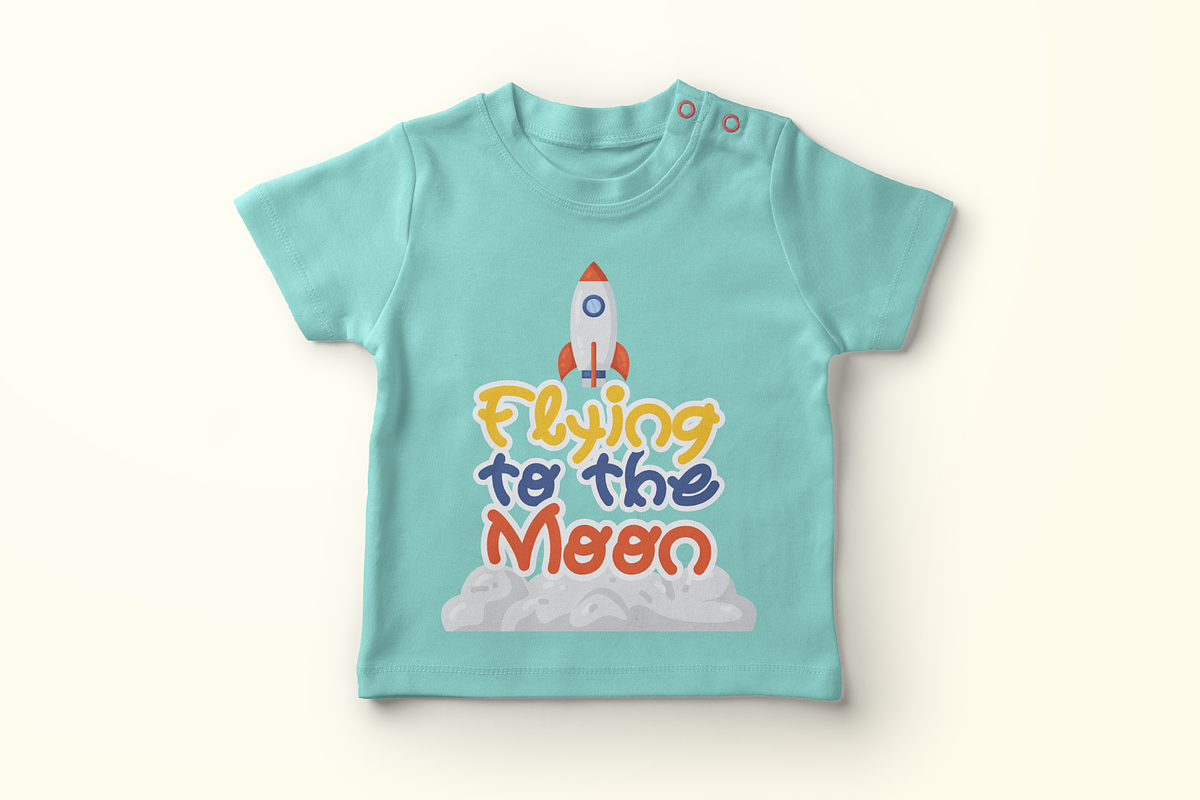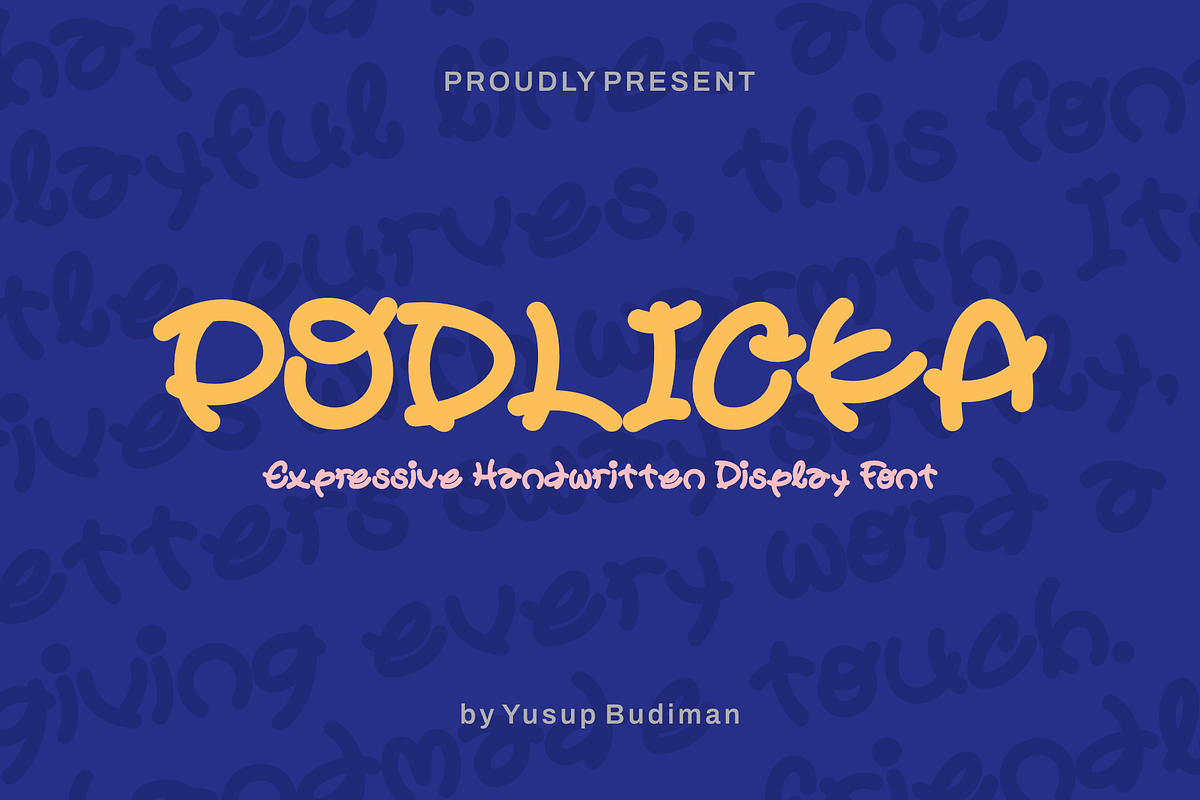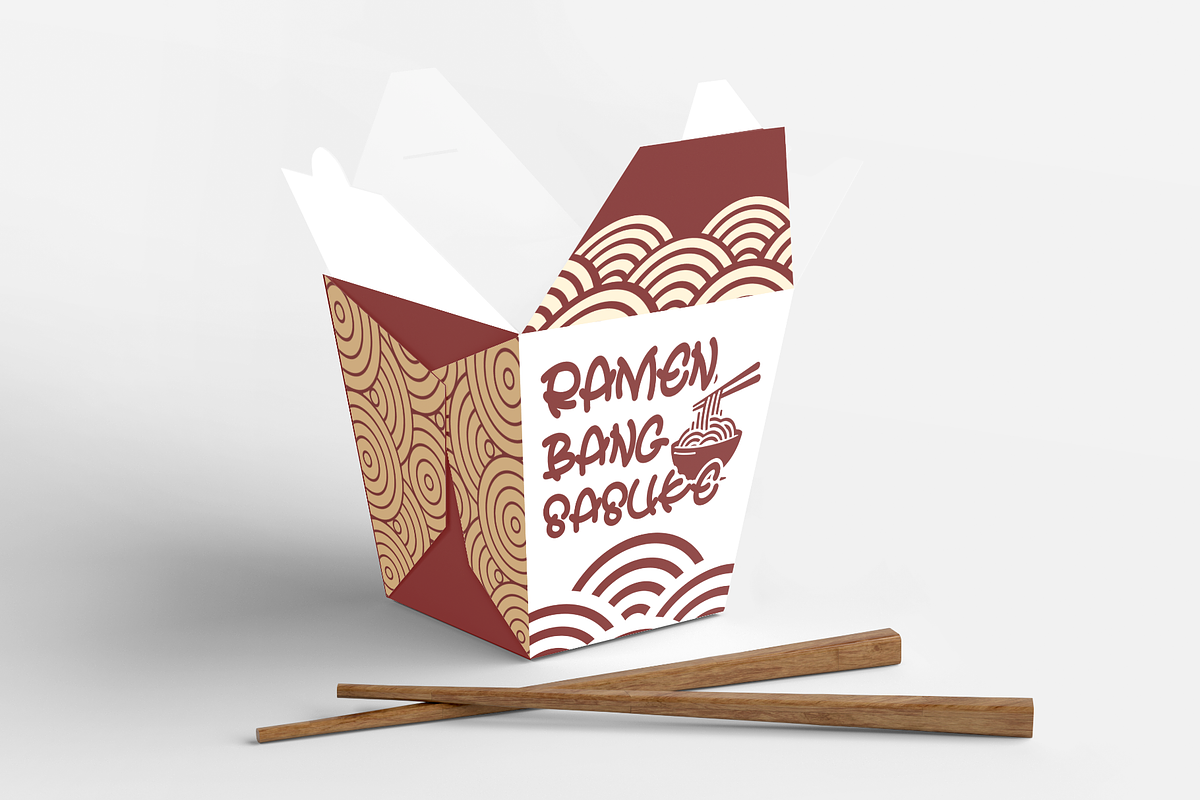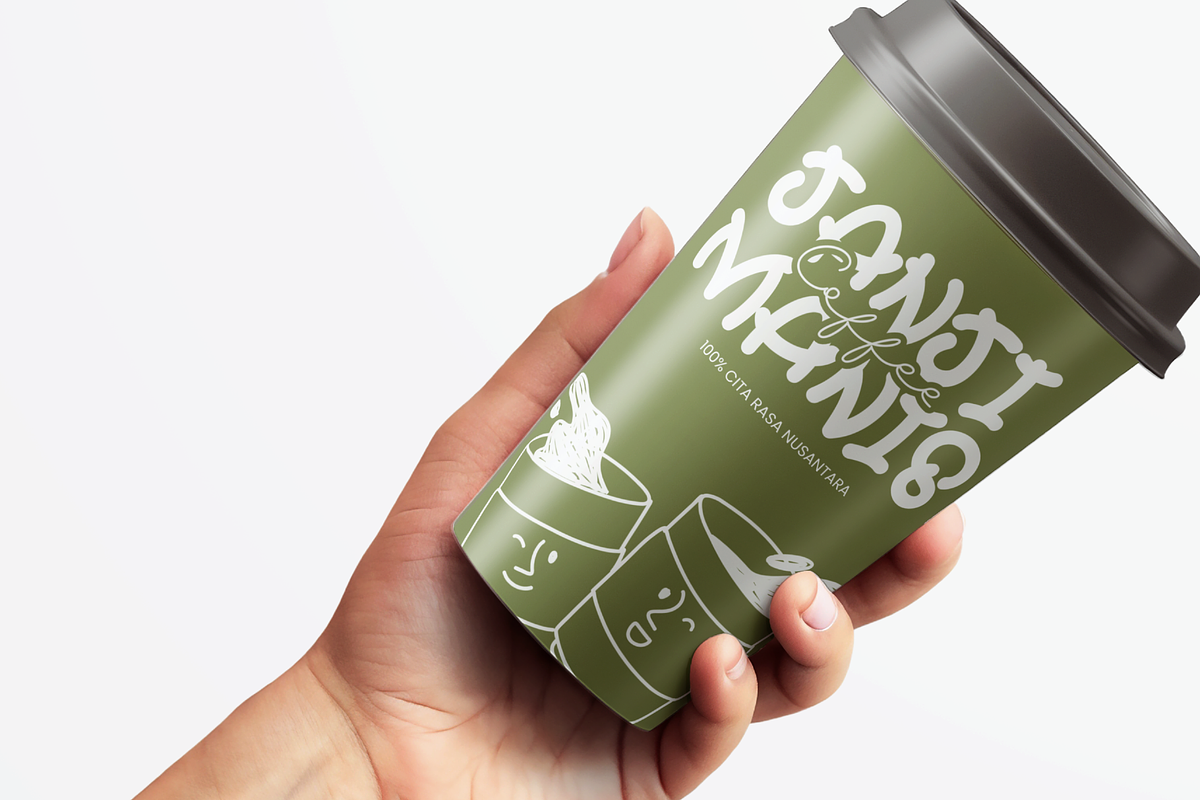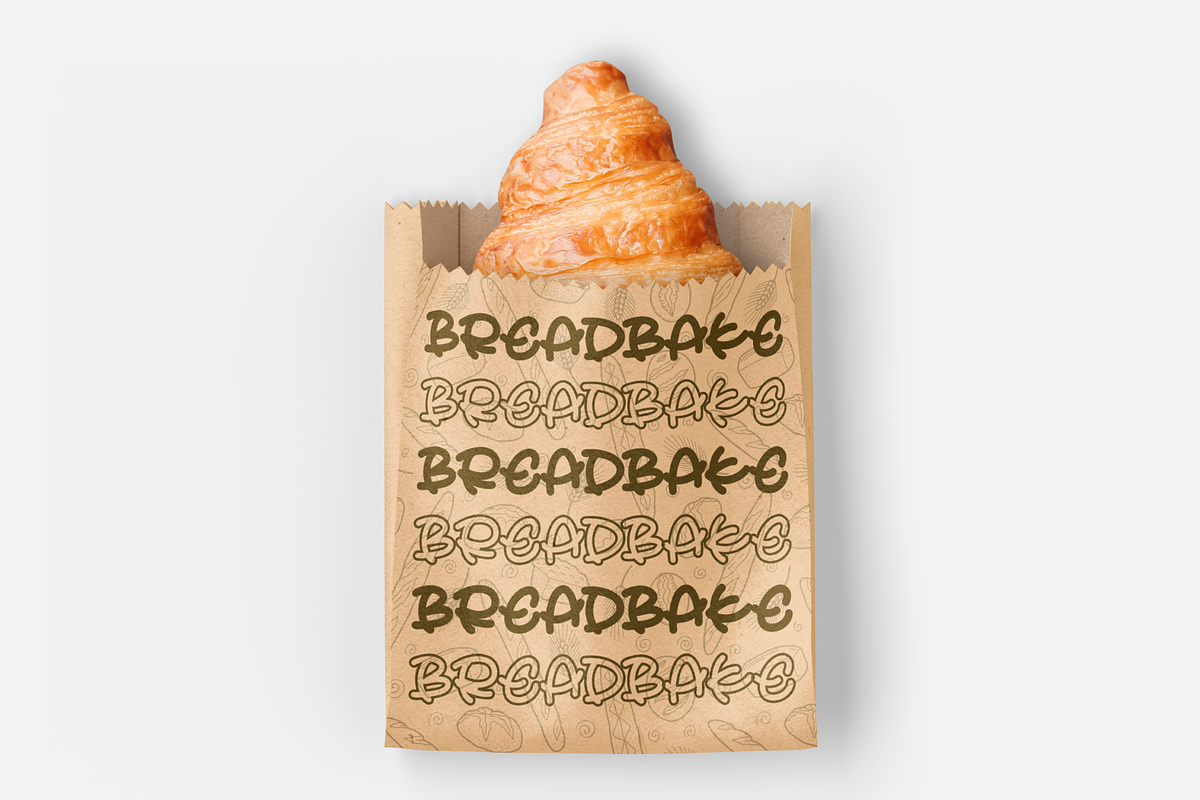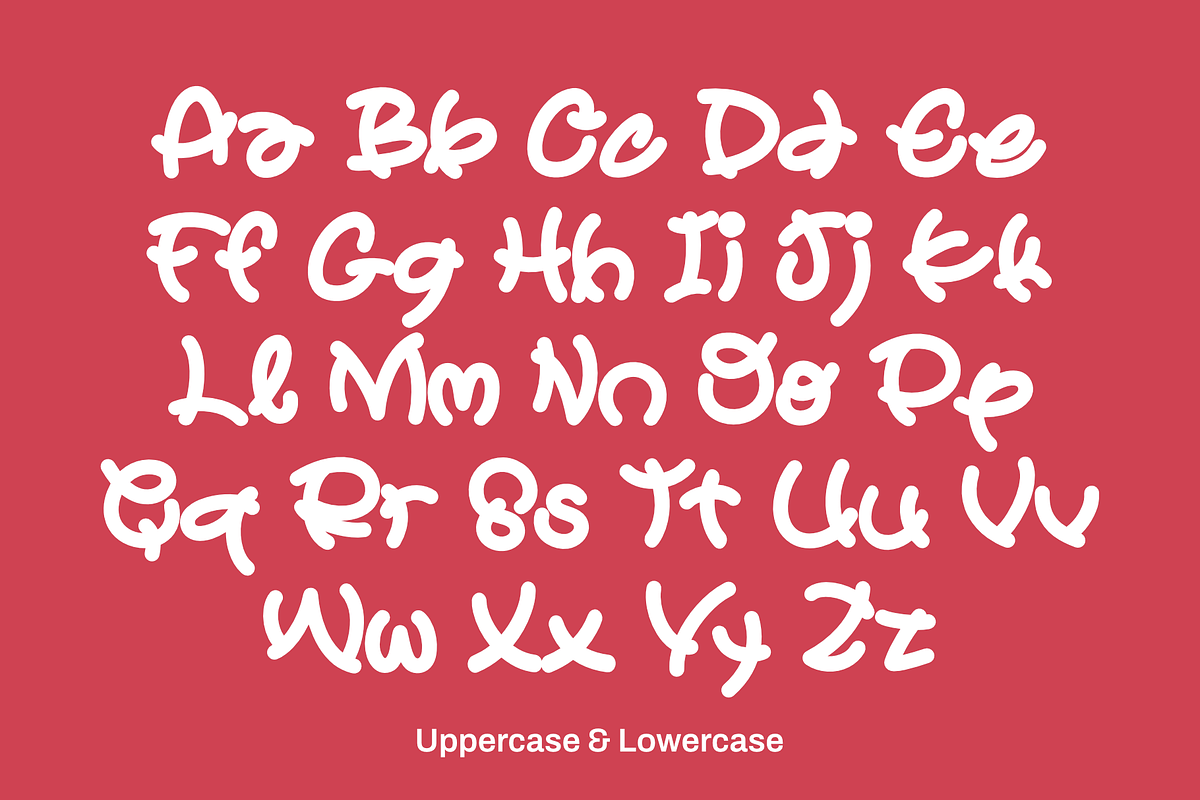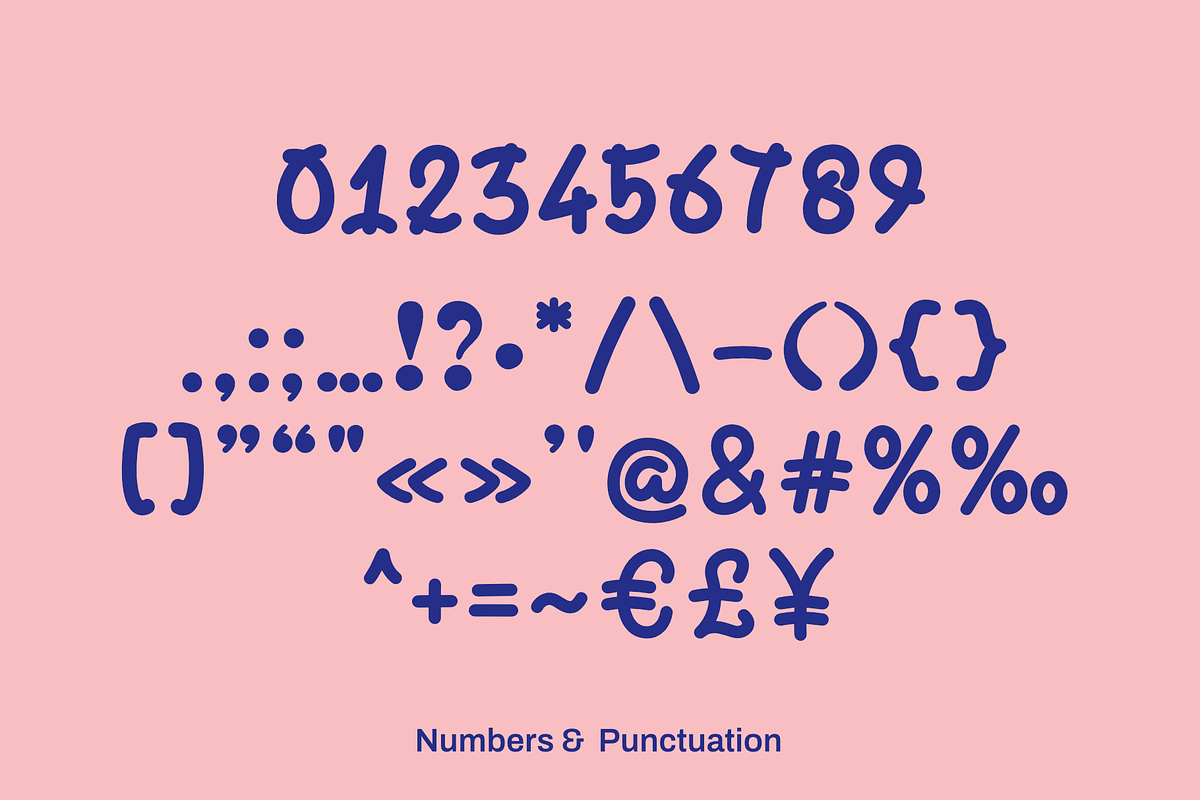
PODLICKA – Expressive Handwritten Display Font
Meet PODLICKA, an expressive handwritten display font that combines bold personality with effortless charm.
Inspired by handwritten brush lettering and modern café aesthetics, Podlicka features energetic strokes, rounded forms, and playful imperfections that make every word feel authentic and full of character.
Whether you're designing restaurant branding, coffee packaging, bakery logos, food labels, merchandise, or social media graphics, Podlicka delivers a warm handcrafted look that instantly attracts attention.
Its friendly yet bold appearance also works beautifully for posters, stickers, apparel, menus, product packaging, and creative branding projects.
Designed to make your typography feel approachable, memorable, and full of personality.
Uppercase Letters
Lowercase Letters
Symbols
Expressive Handwritten Style
Bold Display Font
Logo Friendly
Easy to Read
Podlicka is a perfect choice for designers, entrepreneurs, and creative brands looking for a handwritten display font with strong personality. Whether you're creating food packaging, café branding, merchandise, logos, or promotional materials, Podlicka gives every project a handcrafted and memorable look.